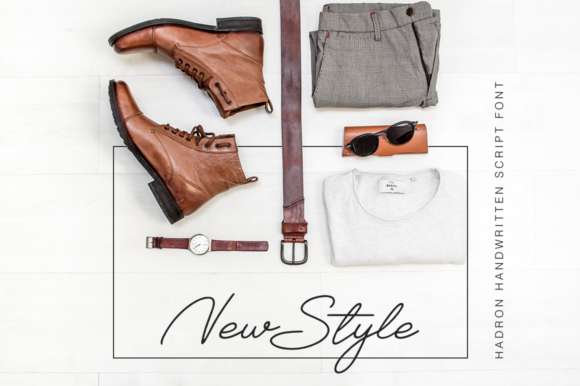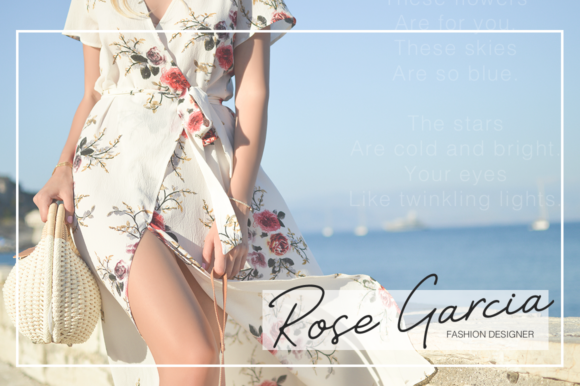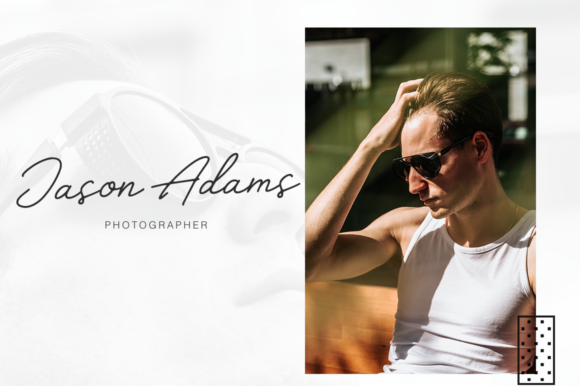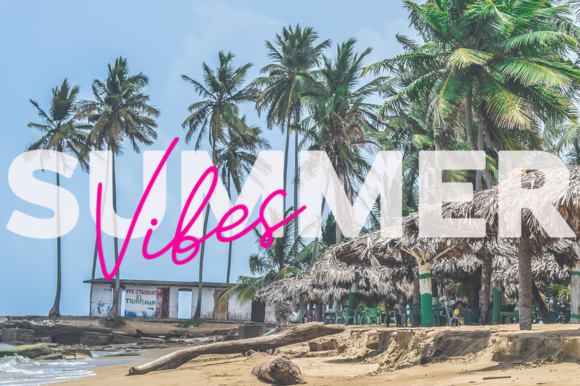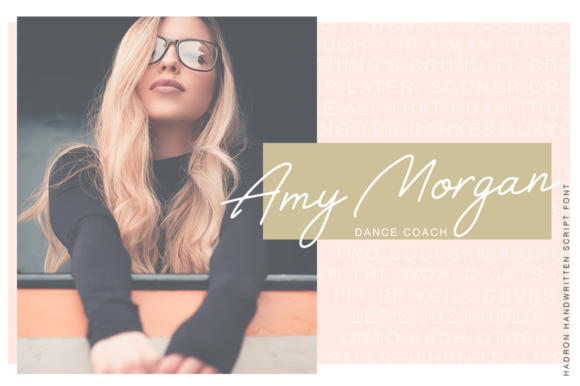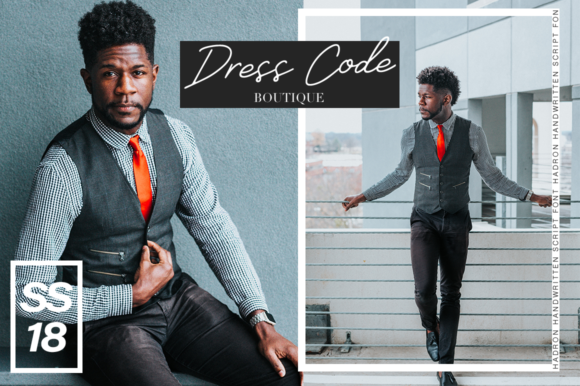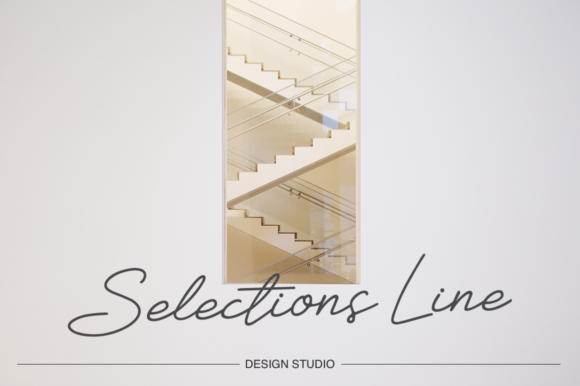
Hadron Font
About Hadron Font
Hadron is a beautiful handwritten typeface which can be used for various projects such as; wedding invitations, blogs, logos or just a beautiful frame for your home.